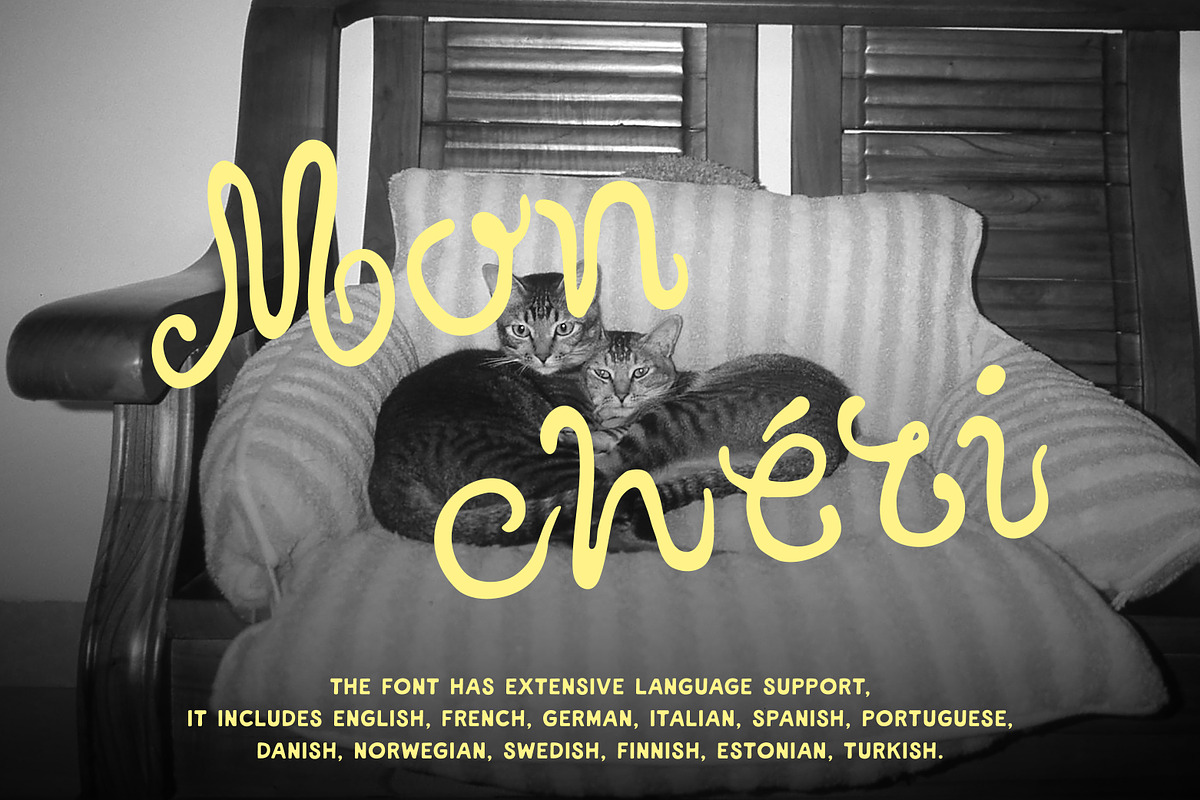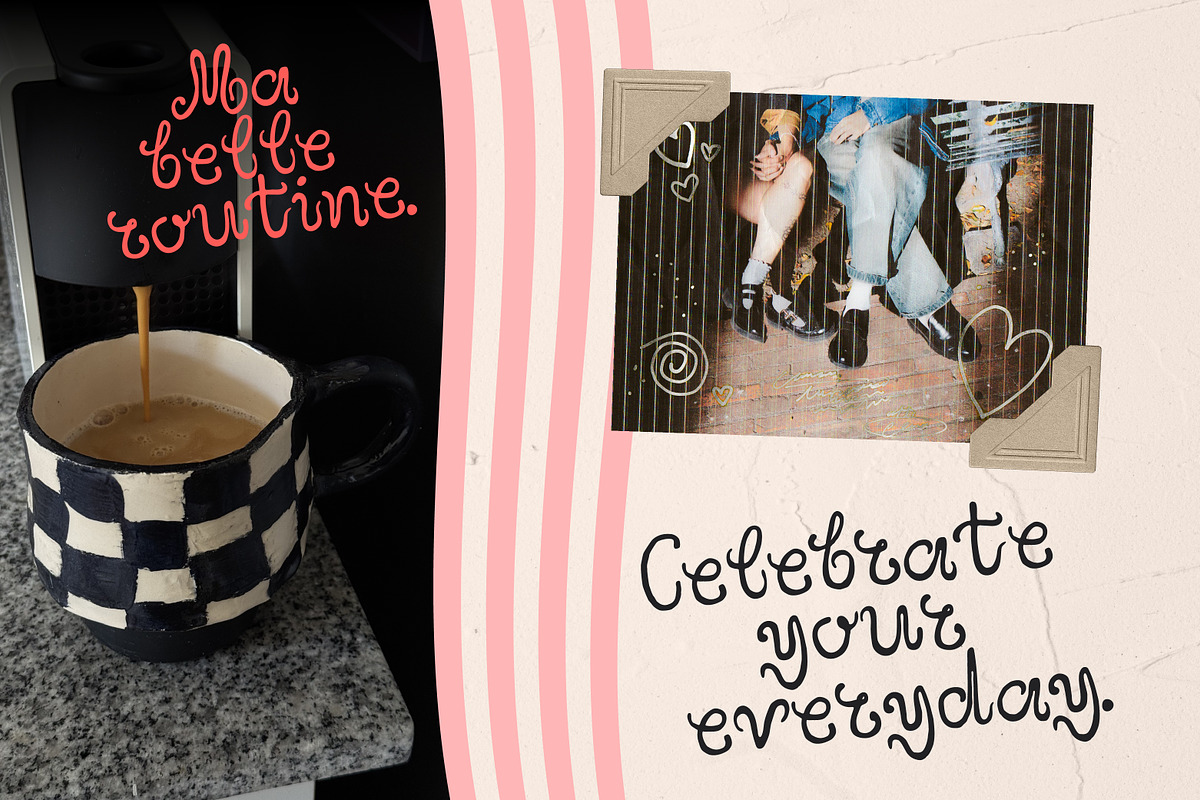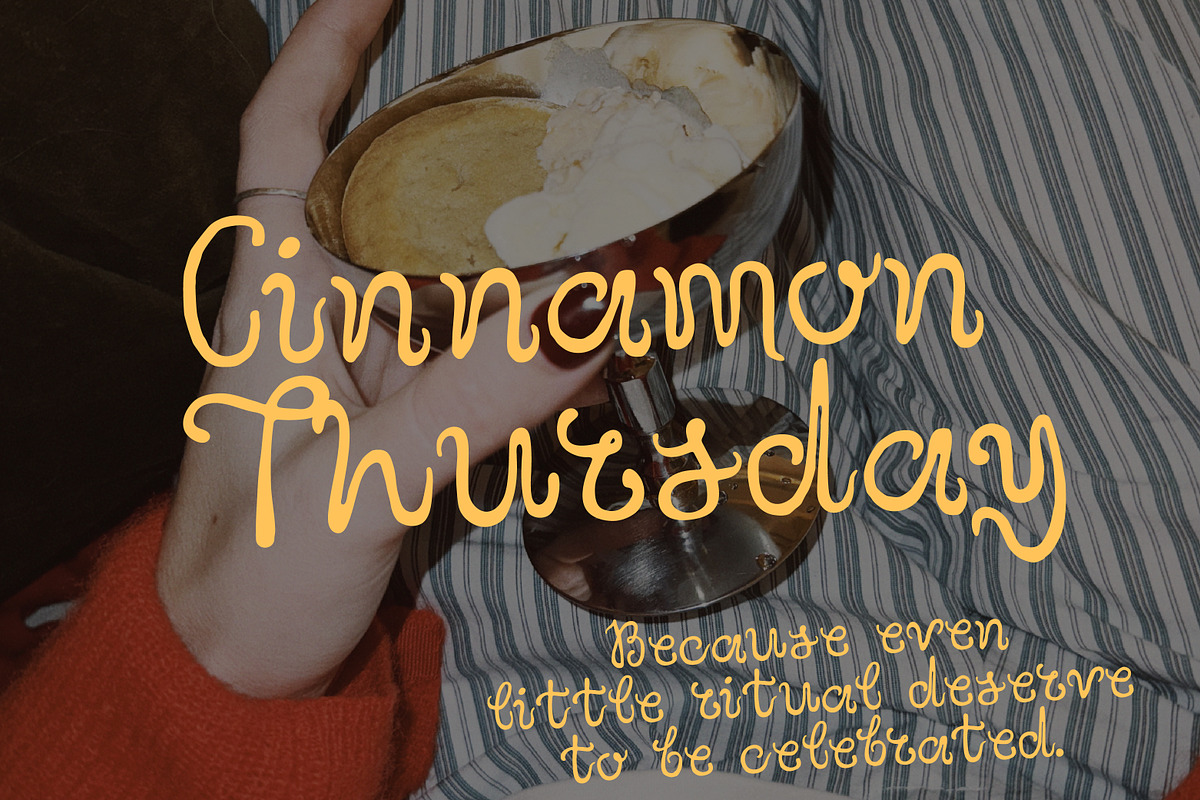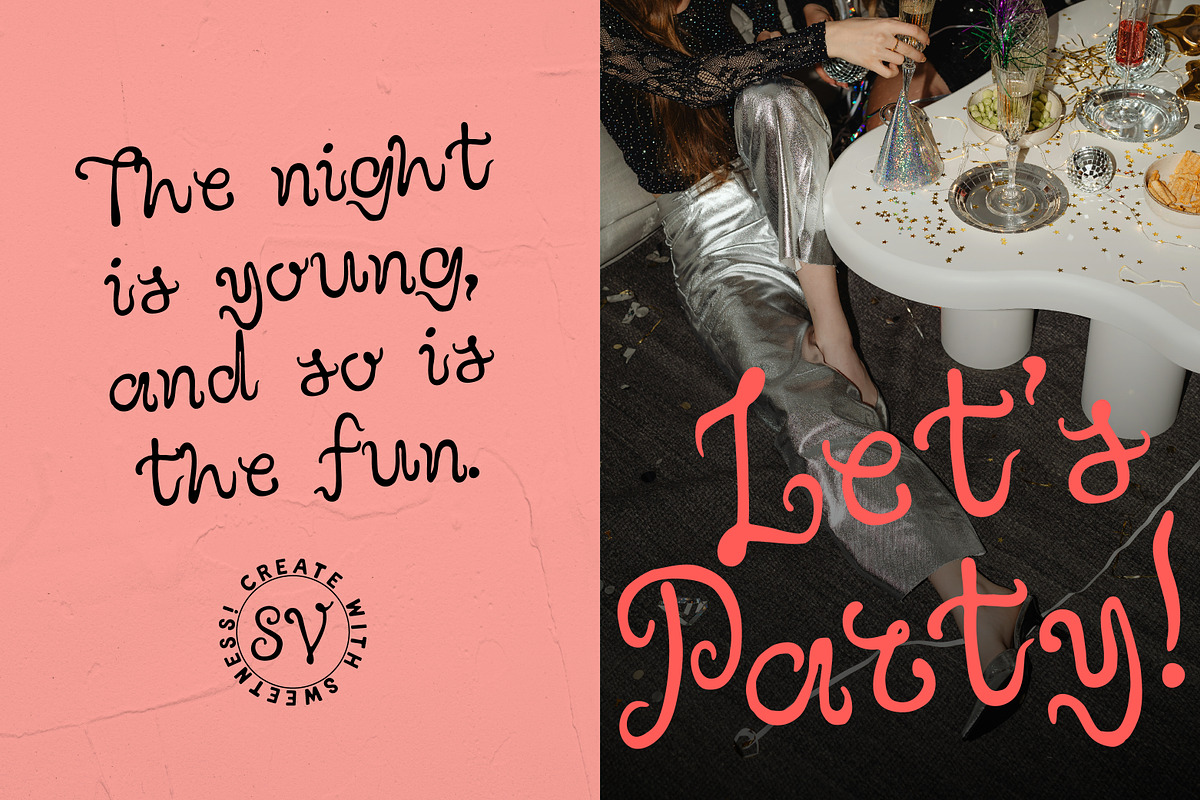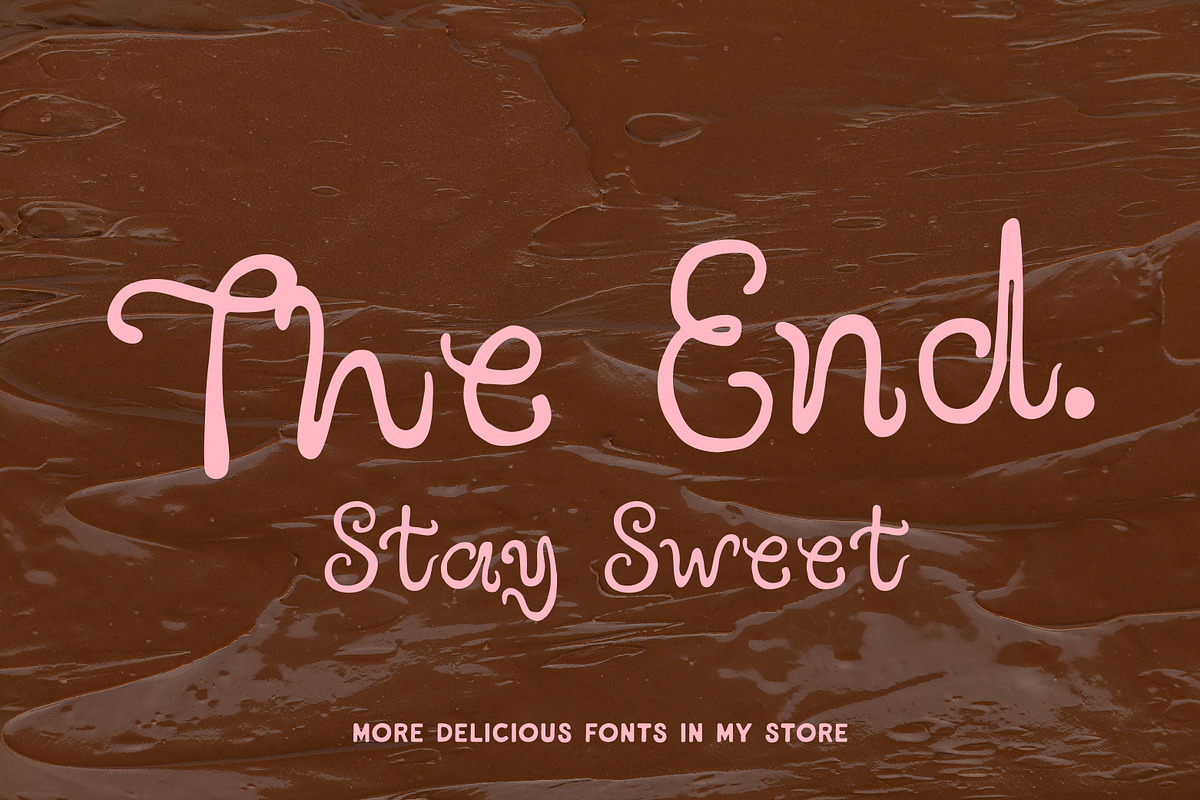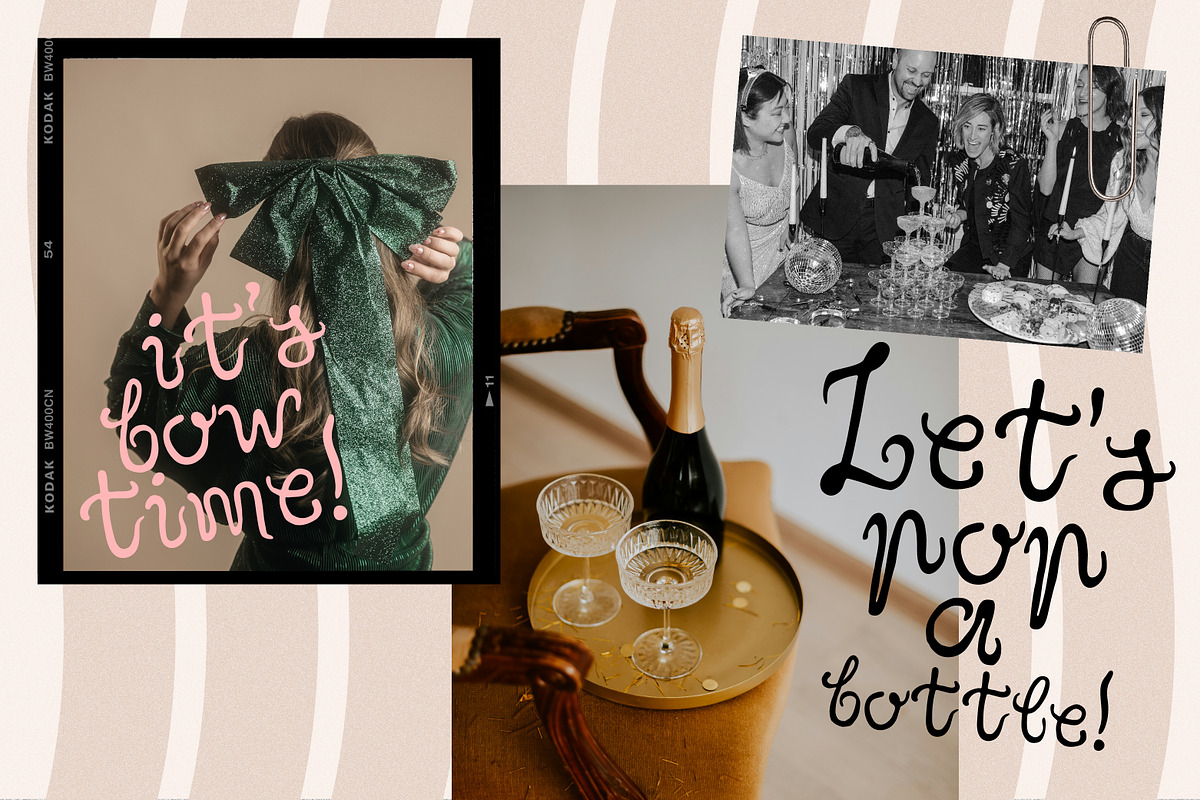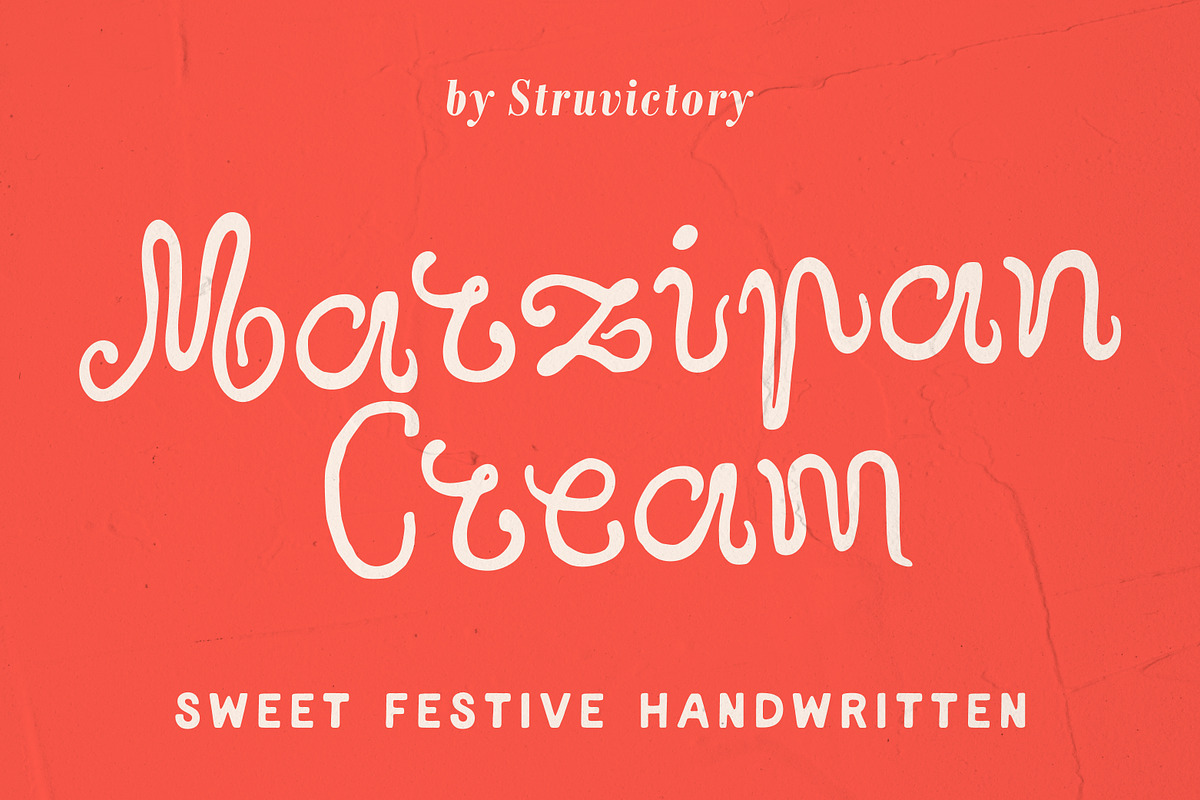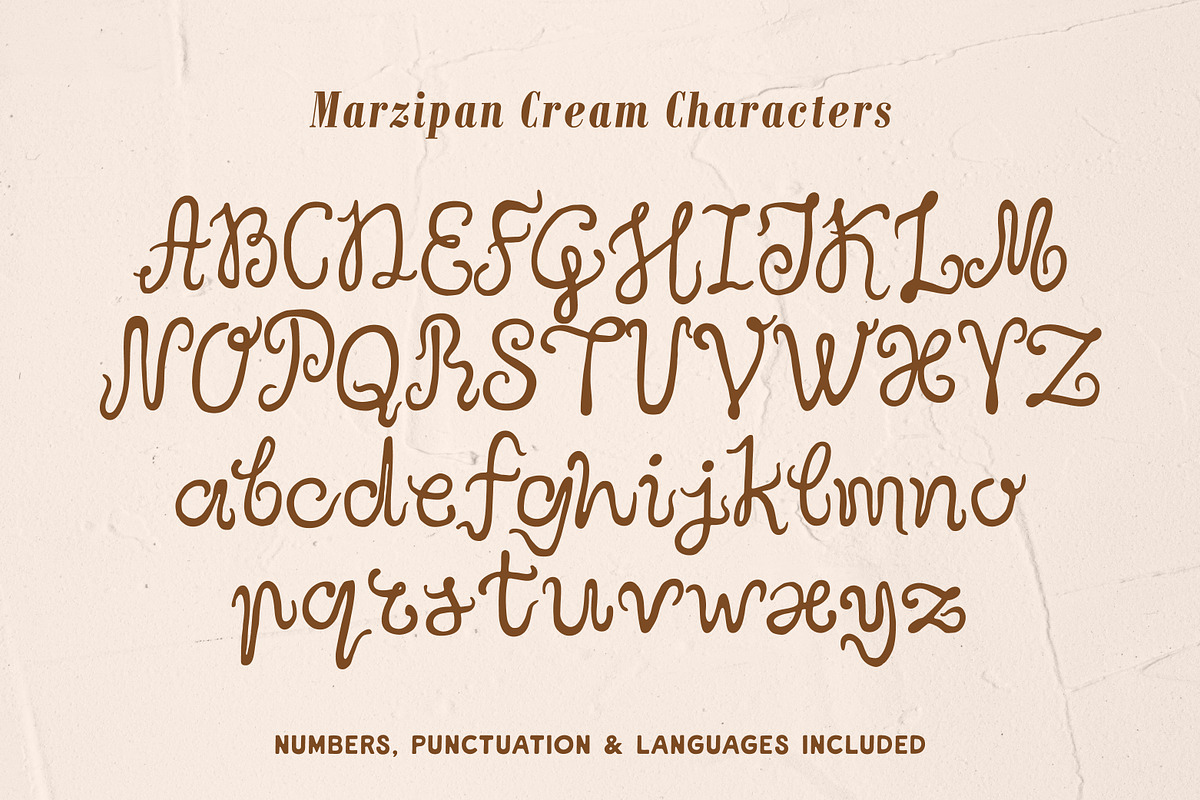
Marzipan Cream Sweet Festive Script
Meet Marzipan Cream, a delightfully imperfect handwritten font where every letter flows like elegant ribbon or delicate piped icing on a cake. Brimming with sweet flourishes and a warm, personal touch, it captures the artistry of handcrafted beauty. This versatile font is the perfect choice for creating cozy Christmas designs, elevating wedding invitations, developing mouth-watering branding for bakeries, designing heartfelt quotes, and adding charm to your holiday social media graphics.
Marzipan Cream font supports the most popular latin-based languages, you can check the symbol you need by typing a couple of words in the font preview box.